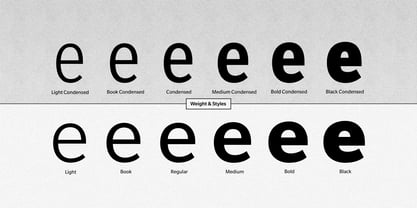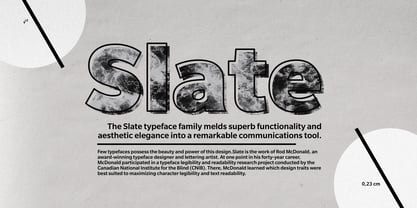
Slate
Slate Font Family was designed by Rod McDonald and published by Monotype. Slate contains 24 styles family package options.
A typeface of grace, power and exceptional versatility, the Slate collection is a truly beautiful design that achieves stellar levels of readability, both in print and on screen. Created by the award winning type designer Rod McDonald, this six-weight sans serif family is a rare example of sublime aesthetics meeting world-class functionality. The typeface’s legible letterforms embody an amalgam of the best traits of both humanistic and grotesque letterforms. “I didn’t want a face with an ‘engineered’ look, or with any noticeable design gimmicks or devices,” admits designer McDonald. “I wanted a pure design. I confess that I was ruthless with any character that wanted to stand out from the rest.” The Slate collection is available in six weights with complementary italics, with slight changes in structure from the light to the black weights. Its light weight is reminiscent of early American sans. Whether for use in display work or in longer-form settings, few typefaces possess the beauty and power of this design, leaving the Slate family an excellent addition to any designer’s typographic quiver.